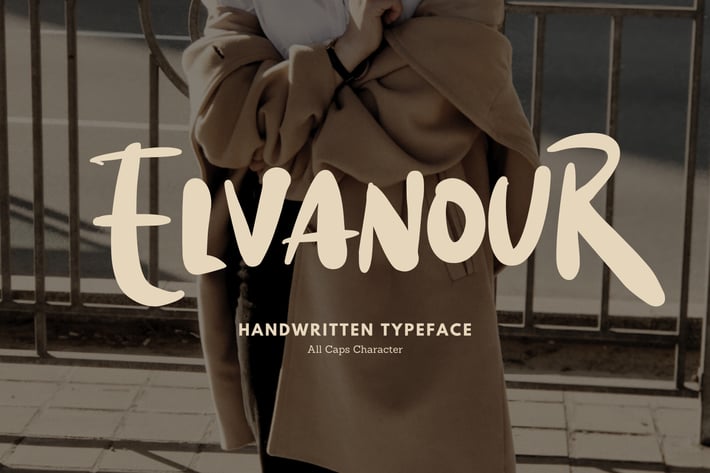
Elvanour Typeface
Its unique style combines striking proportions with vintage charm, making it perfect for standout headlines, branding, and designs that demand attention.
Uppercase Font (All Caps)